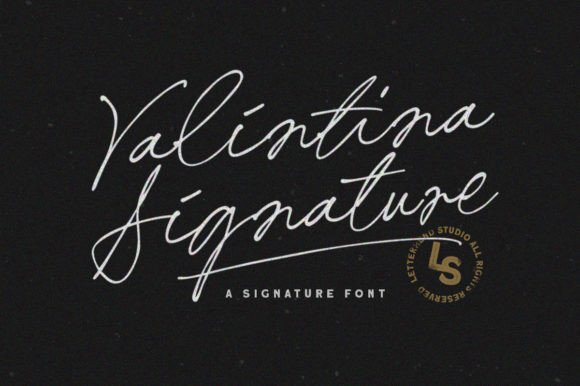
Dive into the world of elegance and sophistication with Valintina Signature Font, the epitome of modern calligraphy. This exquisite script font, meticulously crafted by letterhend, is a symphony of flowing lines and graceful curves that will transform your creative projects into captivating masterpieces. Inspired by the beauty of natural handwriting, Valintina Signature is adorned with stylistic alternates, ligatures, and a delightful blend of thick and thin strokes, resulting in an authentic handwritten effect.
Unleash your creativity and embrace the boundless possibilities of Valintina Signature. Whether you're designing logos, invitations, labels, magazines, books, greeting cards, packaging, fashion designs, or any other form of artistic expression, this font is your ultimate companion. Its versatility knows no bounds and will effortlessly elevate the visual appeal of your work, leaving a lasting impression on your audience.
With Valintina Signature, you'll experience the joy of crafting designs that exude timeless charm and elegance. Its carefully crafted glyphs and swashes, easily accessible through PUA encoding, provide endless opportunities for customization and personalization. Discover the magic of Valintina Signature and elevate your creative endeavors to new heights.